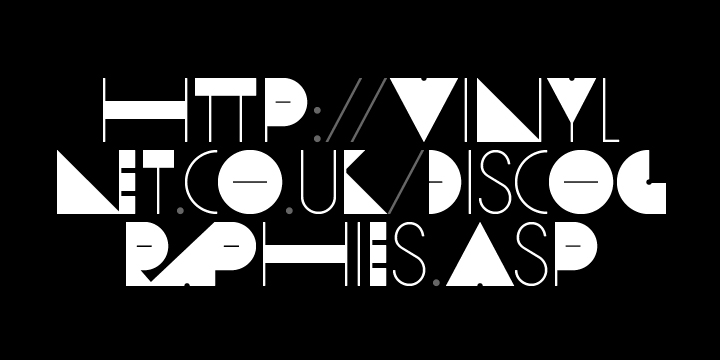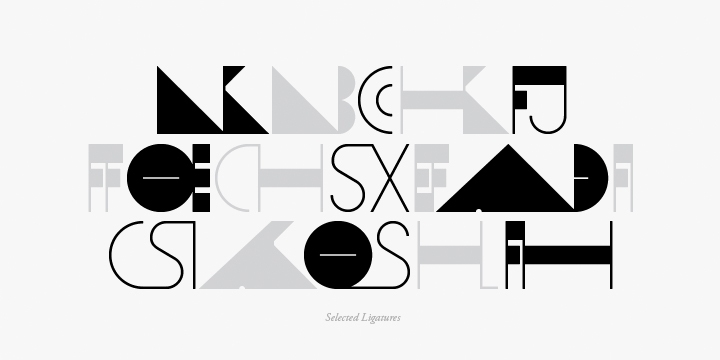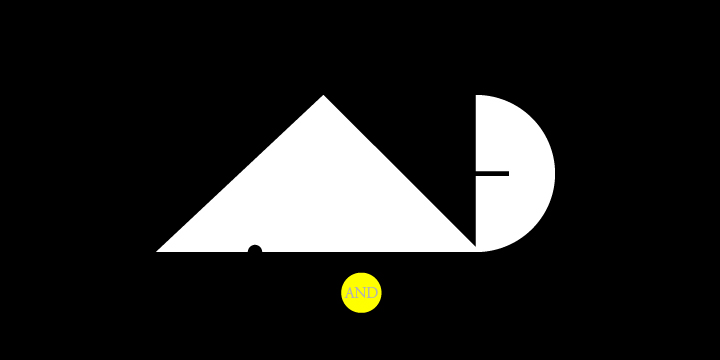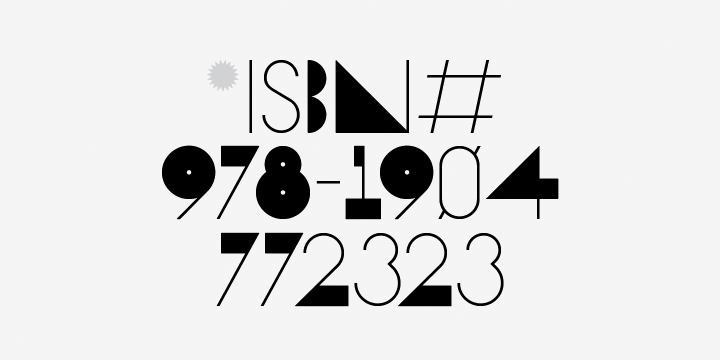
Scam
Scam is a discordantly eccentric geometric display face with exaggerated, alternating forms. Letters variate in extremes between bold and blacked-out and strictly linear, creating unpredictably unique letter pairings.
Stylistically, Scam pushes the boundaries of type-as-image while retaining acute legibility and refinement, greatly contrasting its aberrant nature.
Features include:
- Expanded ligature set (89 unique ligatures, plus alternates)
- Alternate characters (D, H, O, P, Q, R, 0, 6, 9, 8, _)
- Alternate ligatures
- Slashed zero
- Full set of numerators/denominators
- Automatic fraction feature (supports any fraction combination)
- Extended language support (Latin-1 and Latin Extended-A)